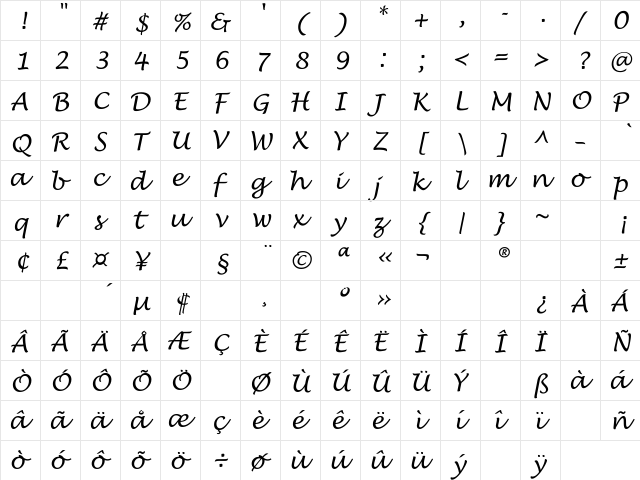
Lucida Handwrit Regular
Design Context for Lucida Handwrit Typeface
Lucida Handwrit brings a calligraphic fluidity to the page — its connecting strokes and expressive curves give it an unmistakably human quality.
Font Pairing: Combine Lucida Handwrit with a simple geometric sans for maximum contrast — the tension between flowing curves and clean structure is a classic typographic pairing.
Pro Tip: Pair Lucida Handwrit with a clean sans-serif for supporting text. The contrast between fluid script and geometric structure creates an elegant typographic hierarchy.